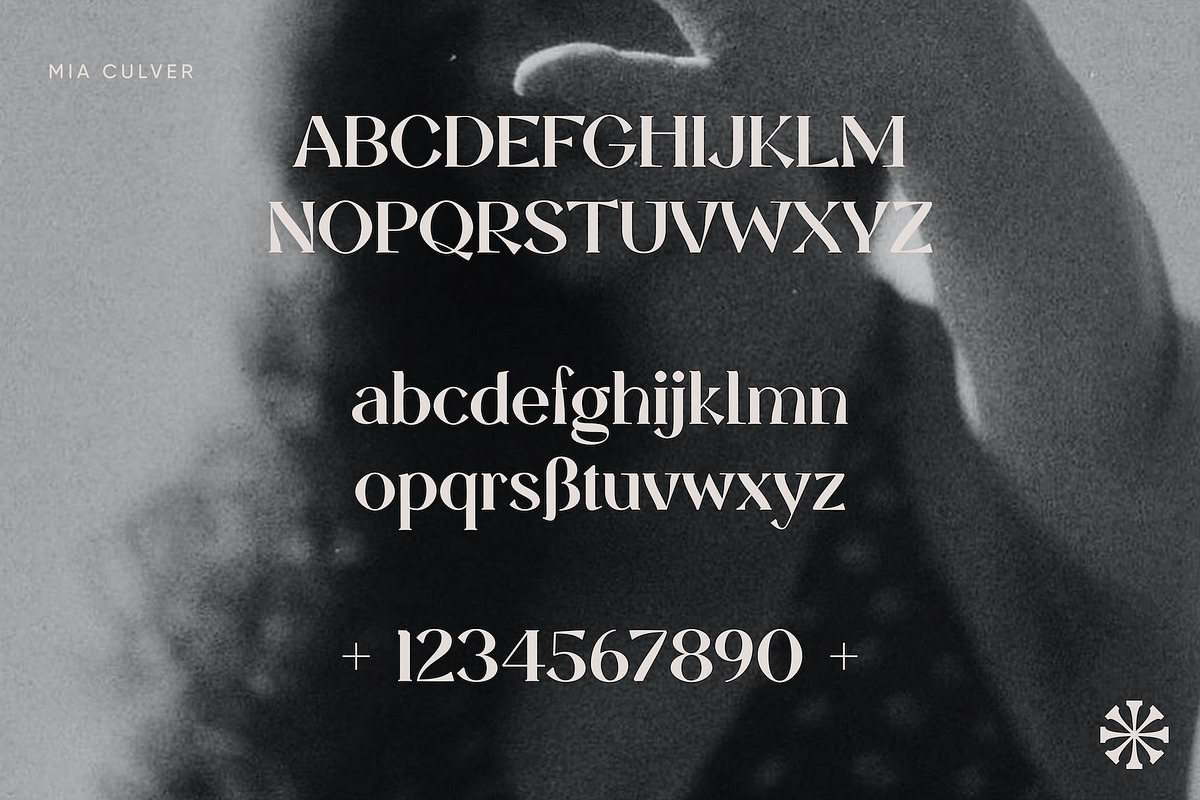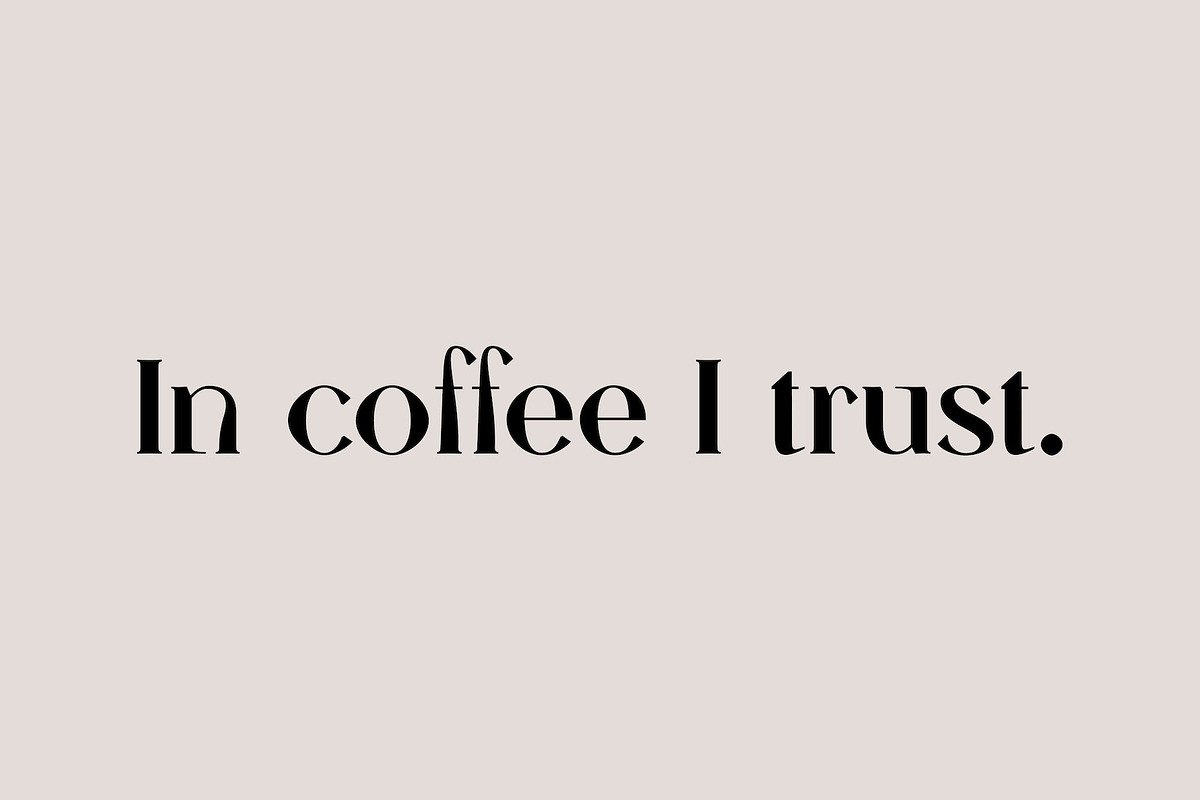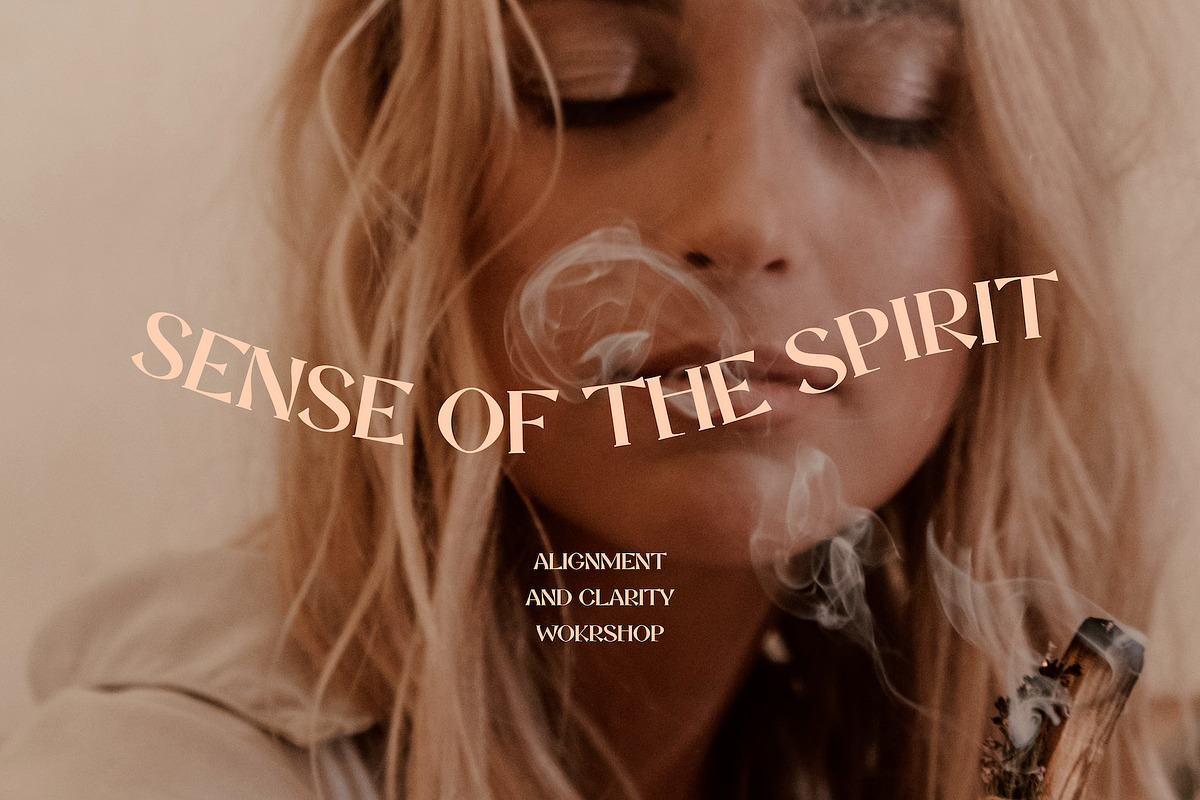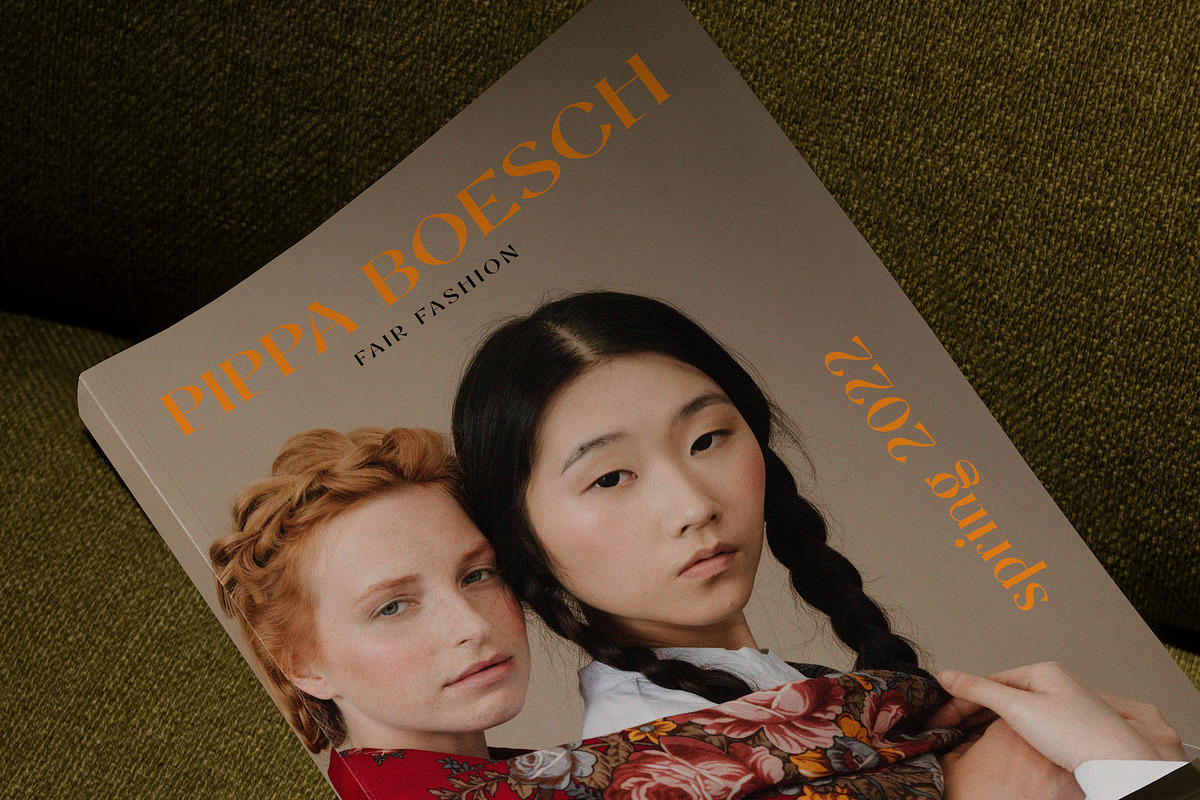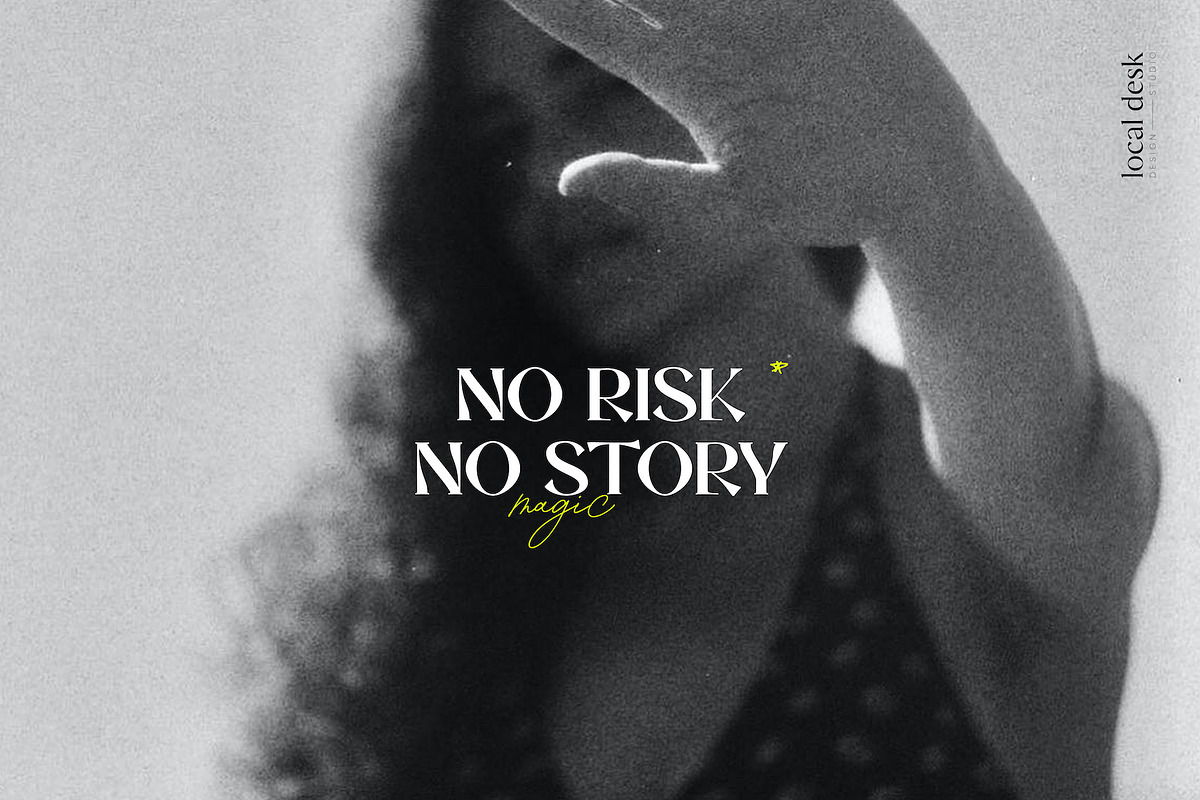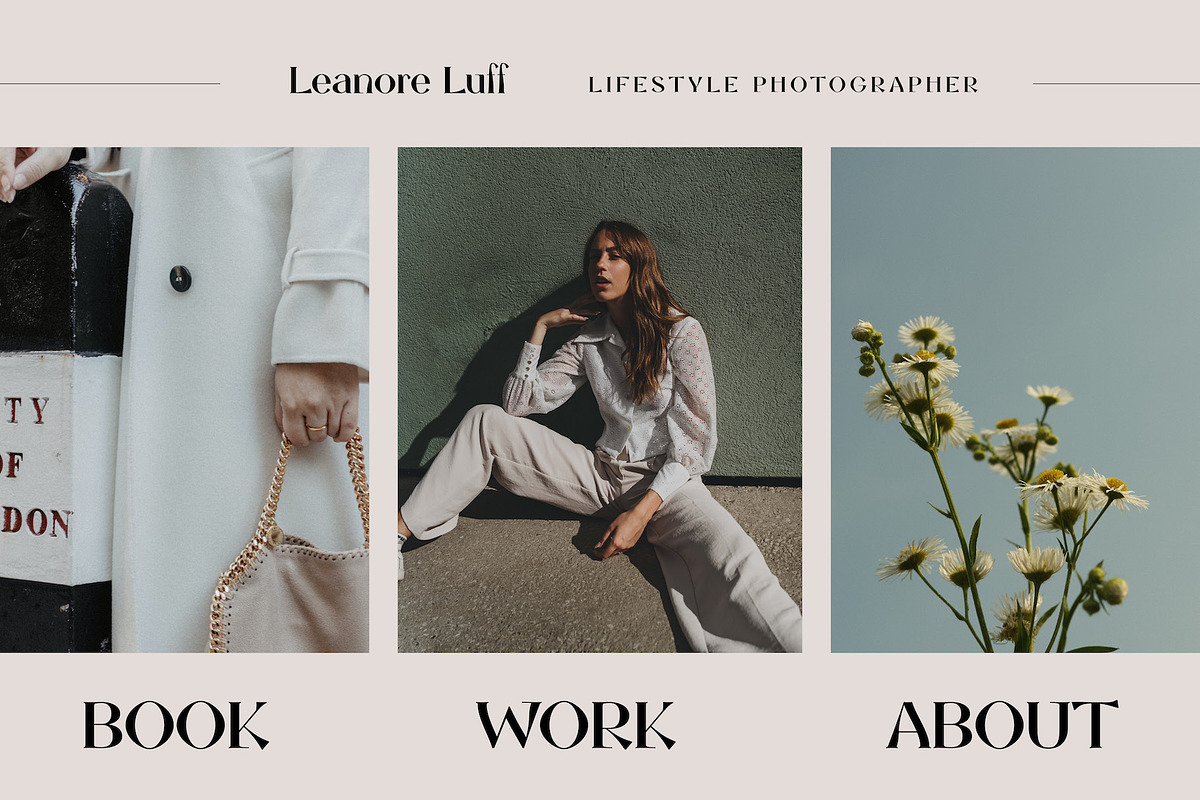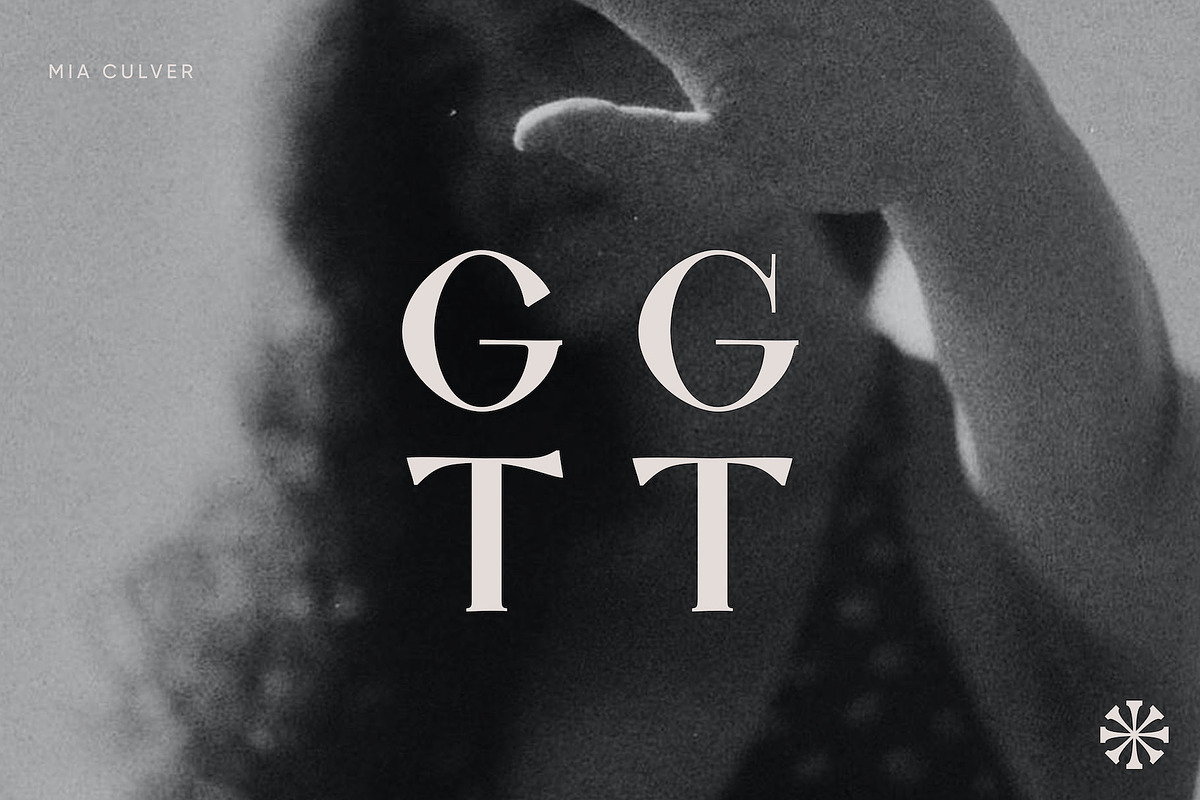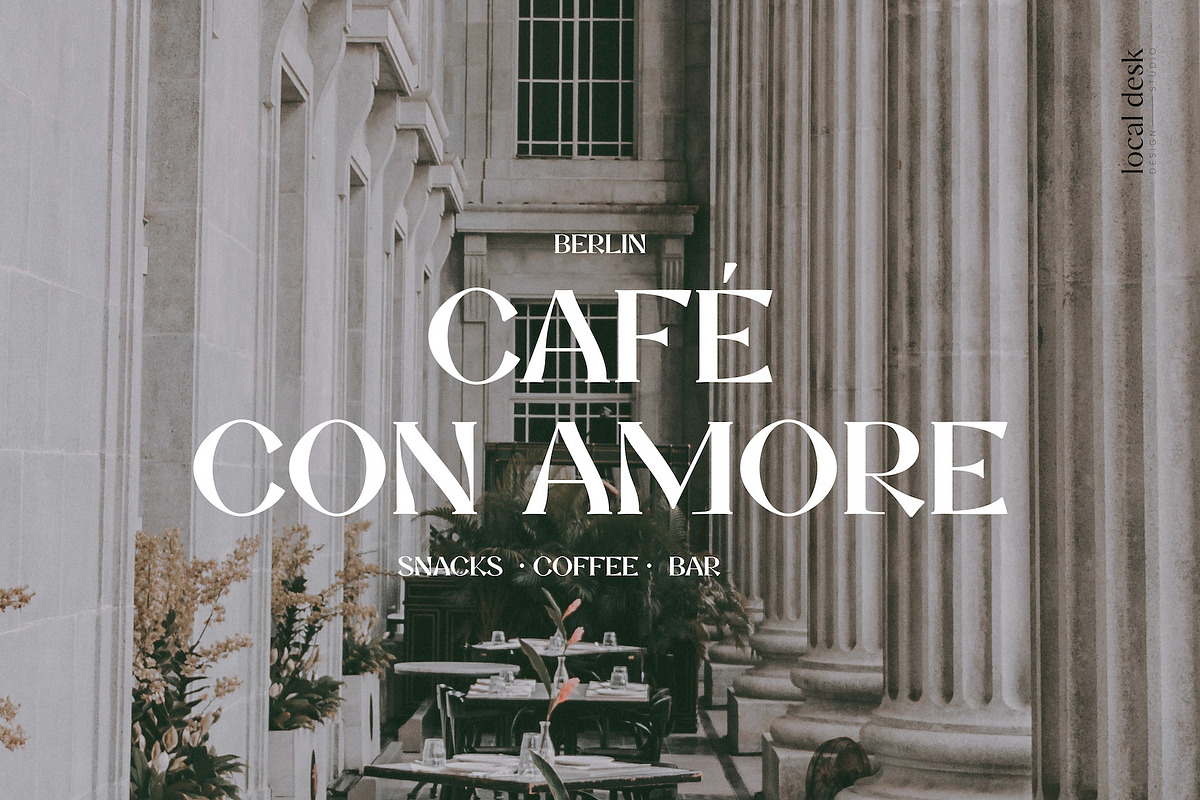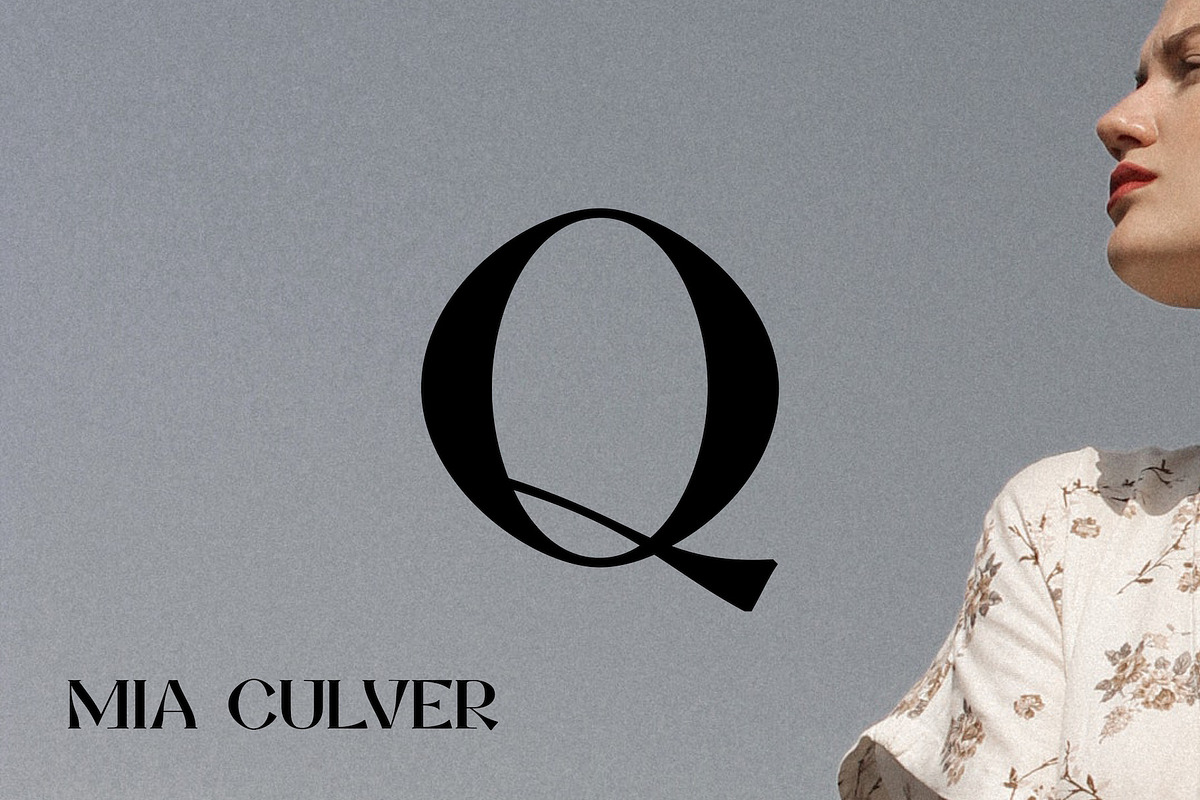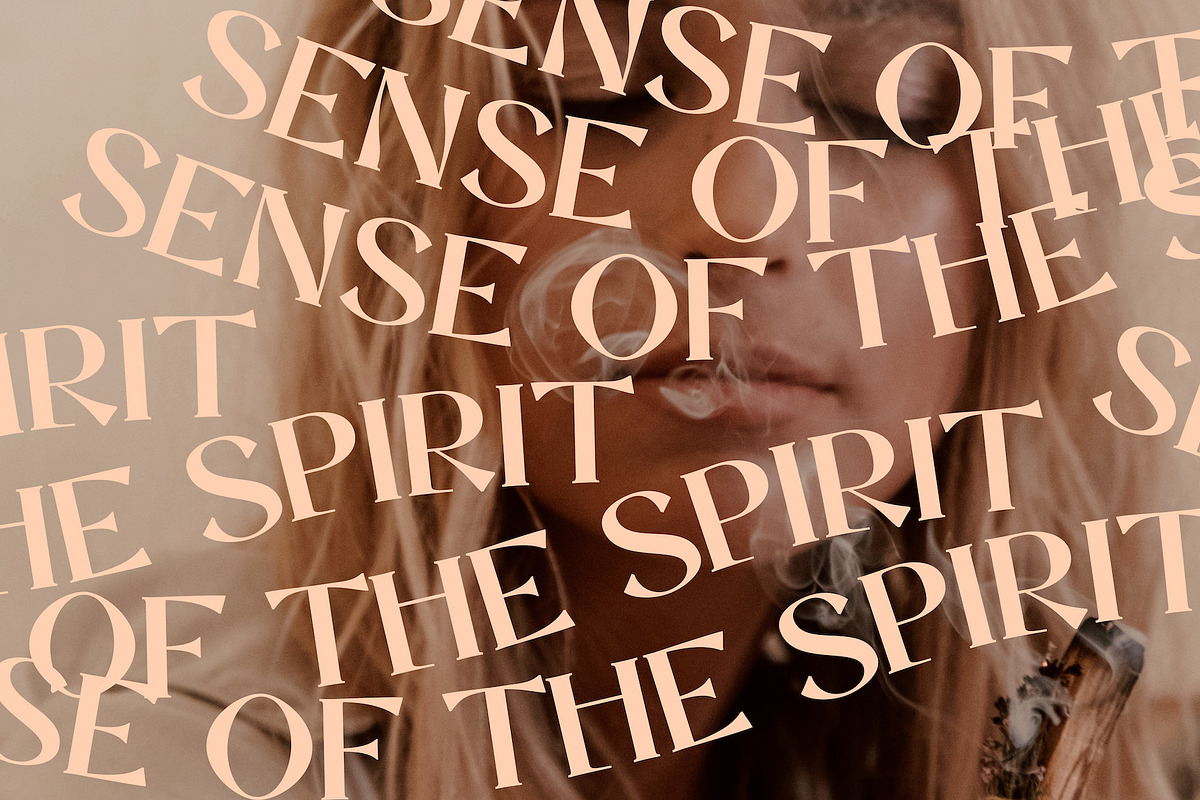
Mia Culver – Cool Display Serif
Mia Culver is a modern serif display typeface that sets itself apart by unique curves and high contrast lines. This font has an edgy & stylish vibe. Mia Culver is perfectly suited for designing modern, high end brands, playful packaging, bold quotes, timeless websites and so much more!